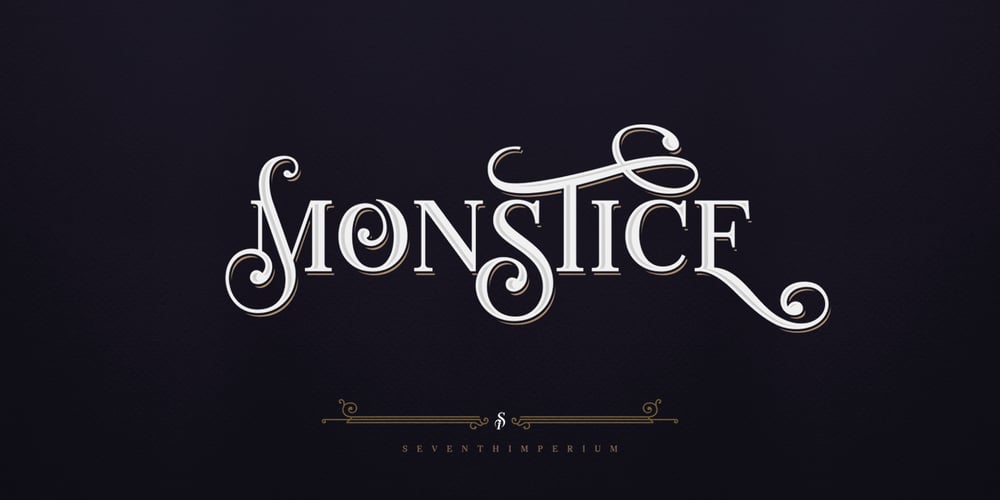
Monstice Font Family was designed by Cucu Supriyadi and published by Seventh Imperium. Monstice contains 7 styles and family package options. Monstice Family is an elegant, playful and decorative family which includes five separate styles. There is a base serif design that was expanded to Engraved, Inline, Hatched, and Emboss styles. There is also a set of decorative elements to assist in adding details and flourishes. The font is well suited for display typography for posters, book covers, packaging and many other uses where one might need a splash of detail. All fonts have OpenType features including swash, ligatures, and alternates. This font is easy to use and will allow the designer plenty of exploratory features to create their own combinations.